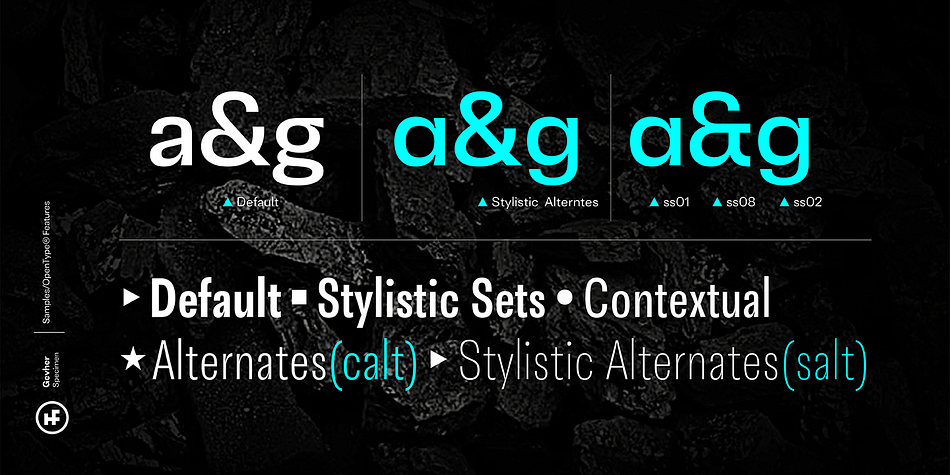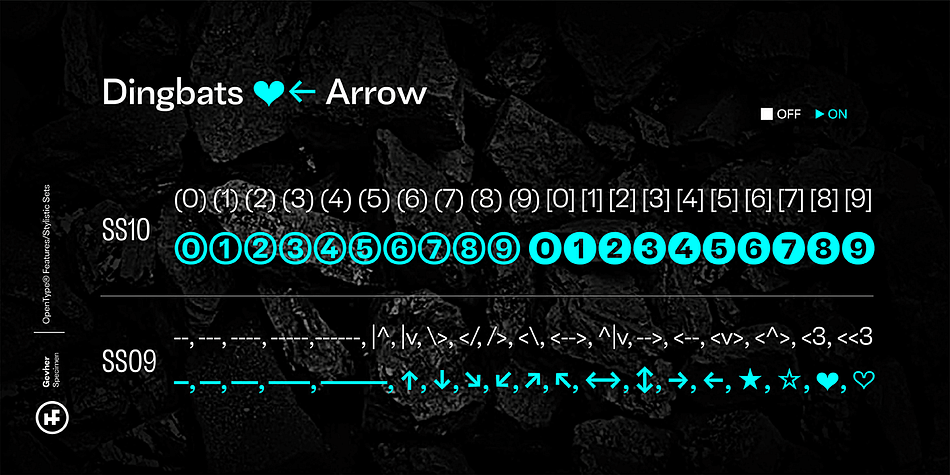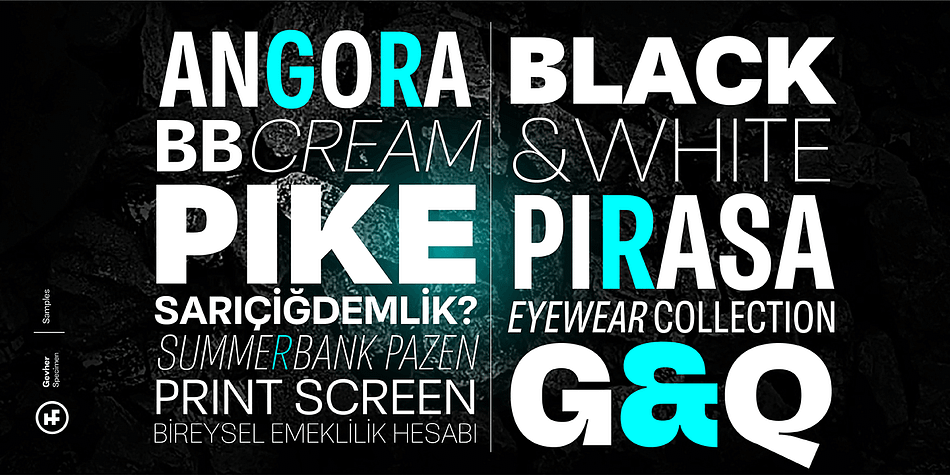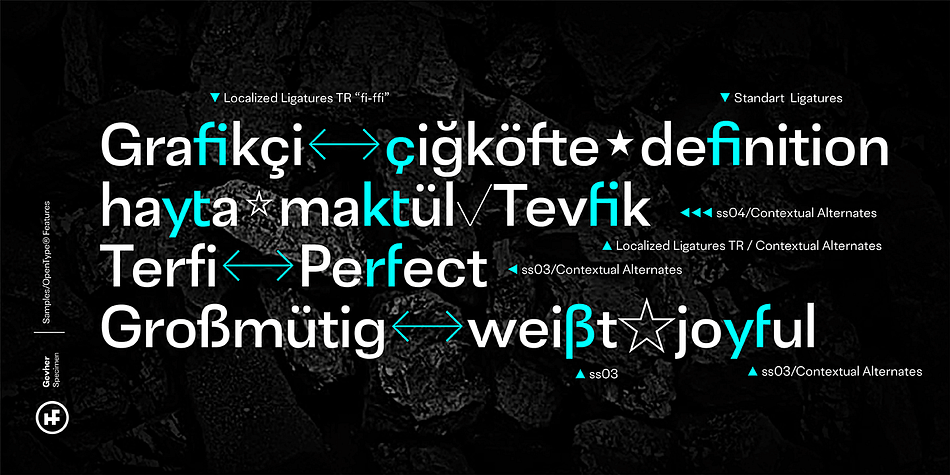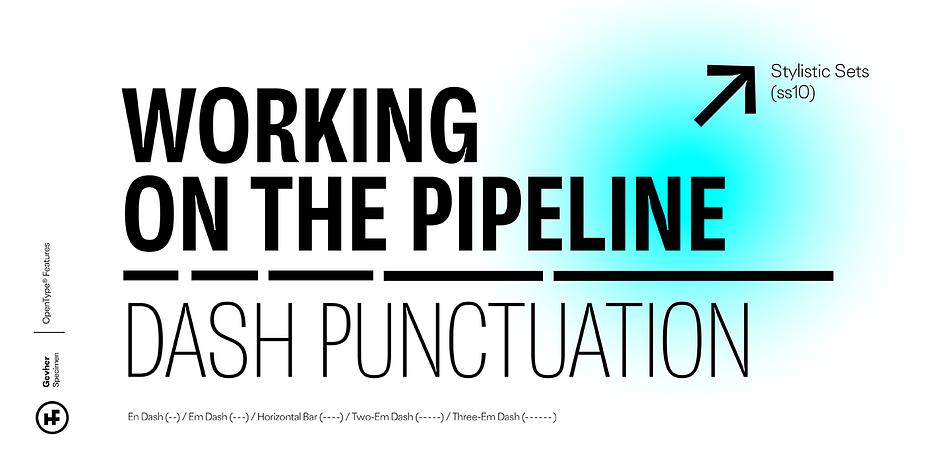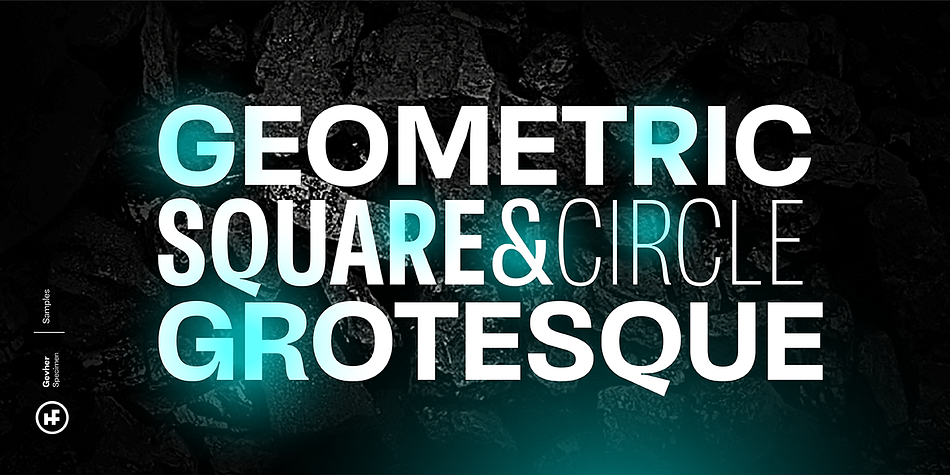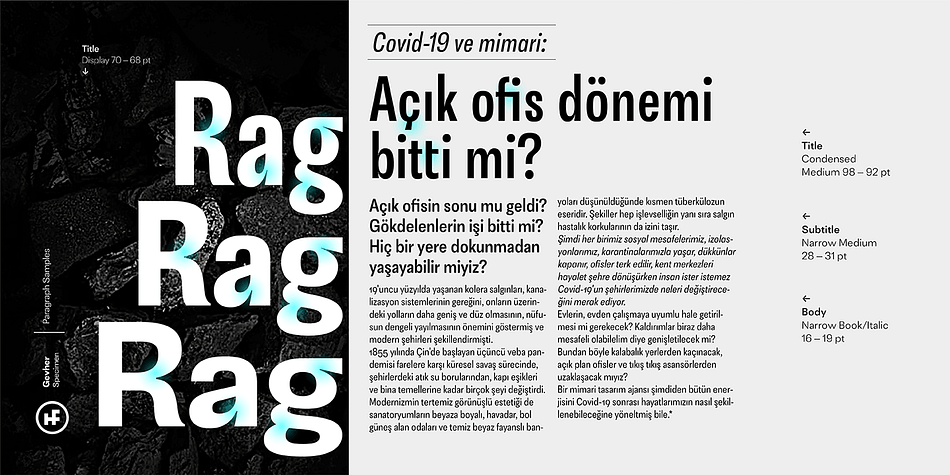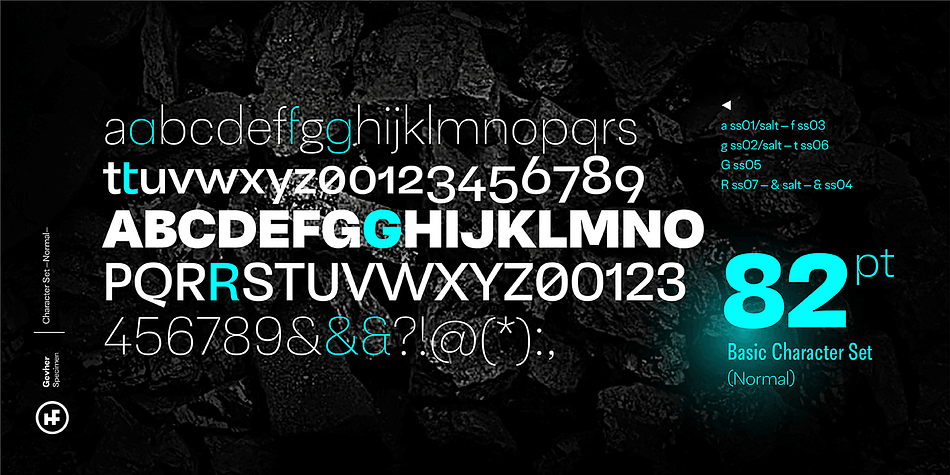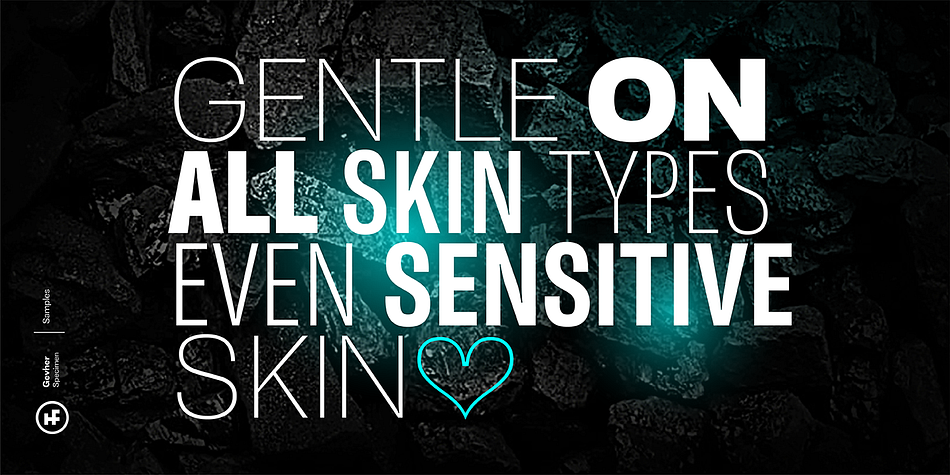
Designed by Oğuzhan Cengiz, gevher is a sans serif font family. This typeface has forty-eight styles and was published by Hurufatfont Type Foundry.
Gevher is a grotesque based font family that the product of a meticulous work that spread over 2 years. It differs from other grotesque fonts with its very soft angular turns to the rounded forms and its daring ink traps. The rigid and stable structure is balanced by deep ink traps and unusual opposite angle at the joints. Thus it has a more humanistic expression.
It has 3 widths: Condensed, Narrow and Normal. It consists of 8 main weights and their compatible italics, totally has 48 styles. Therefore, it provides a wide range of usage practices. It offers creative “contextual alternates” for the best reading experience. Ideal for every editorial design, packaging, corporate identity, brand, application, web and desktop usages.